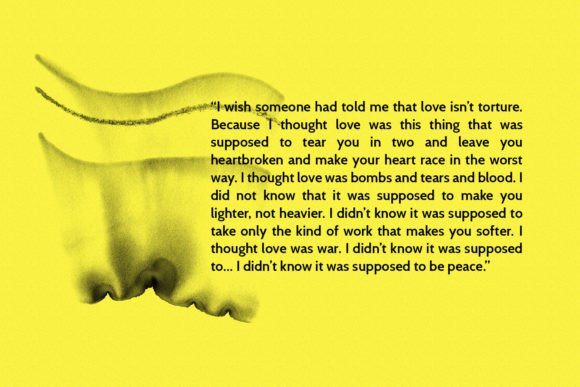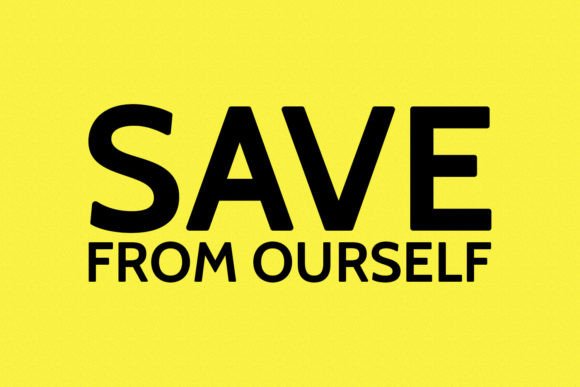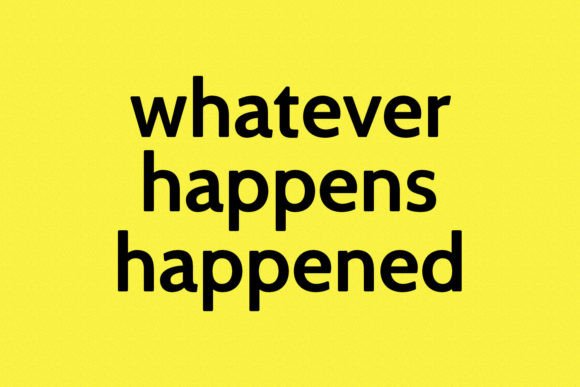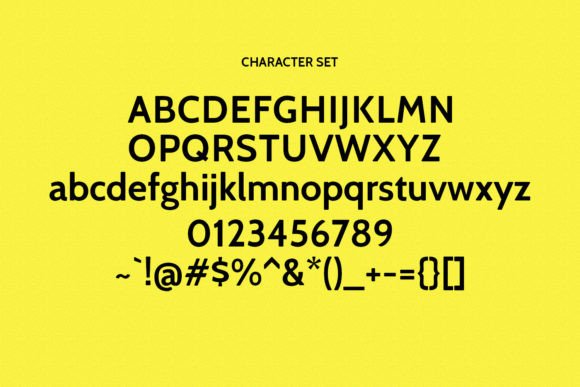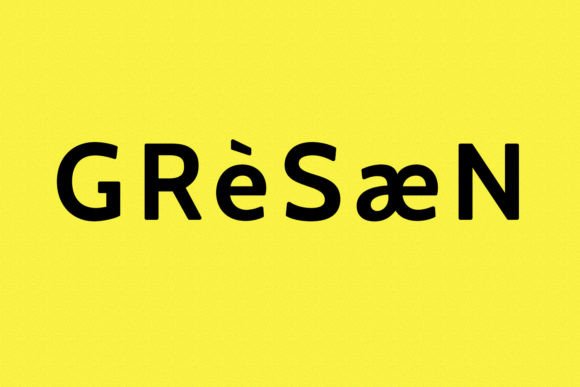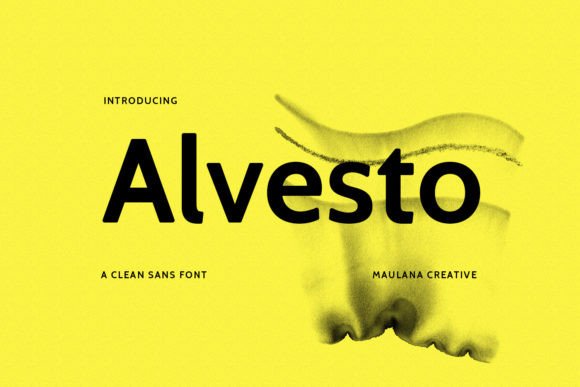
Introducing Alvesto Font: The Epitome of Modern Minimalism
In the realm of typography, few fonts manage to strike a balance between simplicity and elegance as effectively as Alvesto. This sleek and modern sans serif font has been gaining traction among designers and crafters for its clean lines, balanced proportions, and versatility. Whether you’re working on a minimalist design project or seeking a no-nonsense approach to typography, Alvesto is an ideal choice.
The Characteristics of Alvesto Font
Alvesto’s design is rooted in the principles of modern minimalism. Its sans serif structure ensures that the font remains uncluttered and straightforward, making it perfect for designs that require a clean and contemporary look. The clean lines and balanced proportions of Alvesto contribute to its elegance, allowing it to convey a sense of sophistication without appearing overly ornate.
Versatility at Its Core
One of the standout features of Alvesto is its versatility. This font works exceptionally well for both headings and body text, making it a valuable asset for any design project. Whether you’re creating a website, a brand identity, or a marketing material, Alvesto’s adaptability ensures that it can be seamlessly integrated into various contexts. Its ability to maintain clarity and readability across different sizes and applications makes it a reliable choice for designers.
Clarity and Readability
Clarity and readability are paramount in any typography choice, and Alvesto excels in both areas. The font’s design ensures that text remains easily legible, even at smaller sizes. This characteristic makes Alvesto particularly suitable for body text, where the ability to convey information clearly is crucial. Additionally, its clarity in headings helps to create a strong visual hierarchy, guiding the reader through the content with ease.
Why Choose Alvesto for Your Design Project?
There are several reasons why designers and crafters might choose Alvesto for their projects:
• Modern Aesthetic: Alvesto brings a modern and fresh feel to any design, making it perfect for projects that require a contemporary look.
• Minimalist Appeal: For designs that embrace minimalism, Alvesto’s clean and simple structure is ideal.
• Versatility: Its suitability for both headings and body text makes Alvesto a versatile choice that can be used across a wide range of design applications.
• Readability: The font’s high level of readability ensures that your message is communicated effectively.
Using Alvesto in Different Design Applications
Alvesto’s adaptability makes it suitable for various design applications. Here are a few examples:
• Web Design: Alvesto’s clean lines and modern aesthetic make it perfect for website designs that require a sleek and professional look.
• Branding: For brands aiming to convey a sense of modernity and elegance, Alvesto can be used in logos, marketing materials, and packaging.
• Print Design: Whether it’s for brochures, posters, or business cards, Alvesto’s readability and aesthetic appeal make it a great choice.
Alvesto font represents the perfect fusion of modern minimalism and typographic excellence. Its sleek design, versatility, and high readability make it an invaluable asset for designers and crafters looking to imbue their projects with a sense of simplicity and elegance. Whether you’re aiming for a minimalist design or simply seeking a font that can deliver clarity and sophistication, Alvesto is undoubtedly worth considering.
Getting Started with Alvesto
To integrate Alvesto into your design projects, start by exploring its various weights and styles. This will allow you to understand its full range of applications and how it can be tailored to suit different design needs. With Alvesto, you can elevate your designs with a touch of modern elegance and simplicity, ensuring that your message is conveyed with clarity and style.